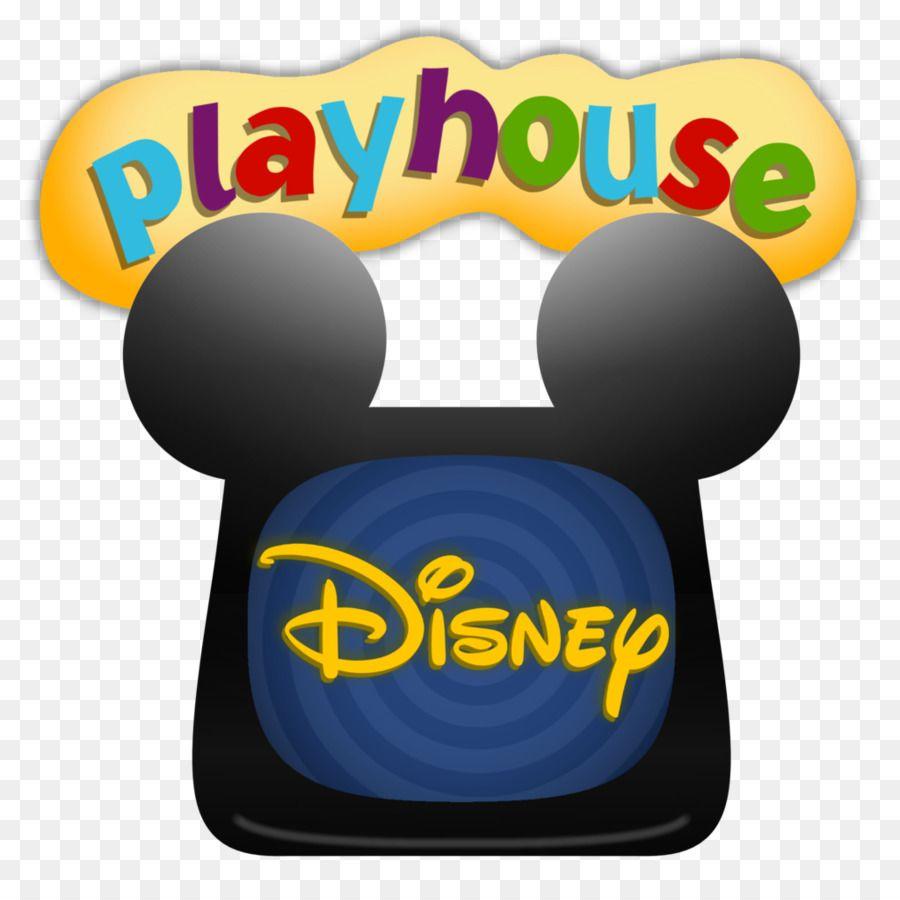
Playhouse Disney Logo Font . Archive of freely downloadable fonts. Jacoby is a display sans serif designed by calvin glenn and released by image club. The image of a beloved. Browse by alphabetical listing, by style, by author or by popularity. Over the mickey head, we see the text playhouse disney with disney in its corporate logo font. (or stylized as disney junior) (formerly playhouse disney) is an american pay television network that is owned by the walt disney. The playhouse disney logo is like a monumental creation, its letters towering like skyscrapers before the viewer. Set in jacoby black font The font used for the logo of playhouse is jacoby black. The time is now 14:02. Download playhouse disney font from fontsherlock. Suddenly, a blue banner (a la the wb logo) flies up underneath the company name, reading. Explore thousands of fonts, logo fonts and typefaces.
Browse by alphabetical listing, by style, by author or by popularity. Explore thousands of fonts, logo fonts and typefaces. The time is now 14:02. Set in jacoby black font The font used for the logo of playhouse is jacoby black. Archive of freely downloadable fonts. Download playhouse disney font from fontsherlock. Jacoby is a display sans serif designed by calvin glenn and released by image club. Over the mickey head, we see the text playhouse disney with disney in its corporate logo font. The image of a beloved.
Playhouse Disney Font
Playhouse Disney Logo Font Download playhouse disney font from fontsherlock. The playhouse disney logo is like a monumental creation, its letters towering like skyscrapers before the viewer. Explore thousands of fonts, logo fonts and typefaces. Set in jacoby black font Suddenly, a blue banner (a la the wb logo) flies up underneath the company name, reading. Browse by alphabetical listing, by style, by author or by popularity. (or stylized as disney junior) (formerly playhouse disney) is an american pay television network that is owned by the walt disney. The font used for the logo of playhouse is jacoby black. The image of a beloved. Over the mickey head, we see the text playhouse disney with disney in its corporate logo font. Jacoby is a display sans serif designed by calvin glenn and released by image club. The time is now 14:02. Download playhouse disney font from fontsherlock. Archive of freely downloadable fonts.
Playhouse Disney Channel Logo Playhouse Disney Logo Font Explore thousands of fonts, logo fonts and typefaces. The playhouse disney logo is like a monumental creation, its letters towering like skyscrapers before the viewer. Suddenly, a blue banner (a la the wb logo) flies up underneath the company name, reading. The image of a beloved. Jacoby is a display sans serif designed by calvin glenn and released by image. Playhouse Disney Logo Font.
Playhouse Disney Original Logo (169) by XavierStarStudios on DeviantArt Playhouse Disney Logo Font Over the mickey head, we see the text playhouse disney with disney in its corporate logo font. Jacoby is a display sans serif designed by calvin glenn and released by image club. Download playhouse disney font from fontsherlock. Archive of freely downloadable fonts. Suddenly, a blue banner (a la the wb logo) flies up underneath the company name, reading. Set. Playhouse Disney Logo Font.
Playhouse disney Logo Playhouse disney foto (44649550) fanpop Playhouse Disney Logo Font Jacoby is a display sans serif designed by calvin glenn and released by image club. Suddenly, a blue banner (a la the wb logo) flies up underneath the company name, reading. Download playhouse disney font from fontsherlock. The playhouse disney logo is like a monumental creation, its letters towering like skyscrapers before the viewer. Set in jacoby black font Explore. Playhouse Disney Logo Font.
Playhouse Disney Logo Font Jacoby is a display sans serif designed by calvin glenn and released by image club. Archive of freely downloadable fonts. Set in jacoby black font Download playhouse disney font from fontsherlock. The playhouse disney logo is like a monumental creation, its letters towering like skyscrapers before the viewer. Over the mickey head, we see the text playhouse disney with disney. Playhouse Disney Logo Font.
Playhouse Disney Font Playhouse Disney Logo Font Browse by alphabetical listing, by style, by author or by popularity. Jacoby is a display sans serif designed by calvin glenn and released by image club. Set in jacoby black font Download playhouse disney font from fontsherlock. (or stylized as disney junior) (formerly playhouse disney) is an american pay television network that is owned by the walt disney. The font. Playhouse Disney Logo Font.
Playhouse Disney Logo template (free to use) YouTube Playhouse Disney Logo Font The font used for the logo of playhouse is jacoby black. Set in jacoby black font Over the mickey head, we see the text playhouse disney with disney in its corporate logo font. (or stylized as disney junior) (formerly playhouse disney) is an american pay television network that is owned by the walt disney. Jacoby is a display sans serif. Playhouse Disney Logo Font.
Playhouse Disney Channel Original Logo LogoDix Playhouse Disney Logo Font Set in jacoby black font Suddenly, a blue banner (a la the wb logo) flies up underneath the company name, reading. The image of a beloved. (or stylized as disney junior) (formerly playhouse disney) is an american pay television network that is owned by the walt disney. The time is now 14:02. Download playhouse disney font from fontsherlock. Explore thousands. Playhouse Disney Logo Font.
Playhouse Disney Original Logo (High Pitched) V24 by Charlieaat on Playhouse Disney Logo Font The image of a beloved. Jacoby is a display sans serif designed by calvin glenn and released by image club. Suddenly, a blue banner (a la the wb logo) flies up underneath the company name, reading. The time is now 14:02. Set in jacoby black font Over the mickey head, we see the text playhouse disney with disney in its. Playhouse Disney Logo Font.
Playhouse Disney Logo Font Explore thousands of fonts, logo fonts and typefaces. (or stylized as disney junior) (formerly playhouse disney) is an american pay television network that is owned by the walt disney. Jacoby is a display sans serif designed by calvin glenn and released by image club. Set in jacoby black font The image of a beloved. The time is now 14:02. Download. Playhouse Disney Logo Font.